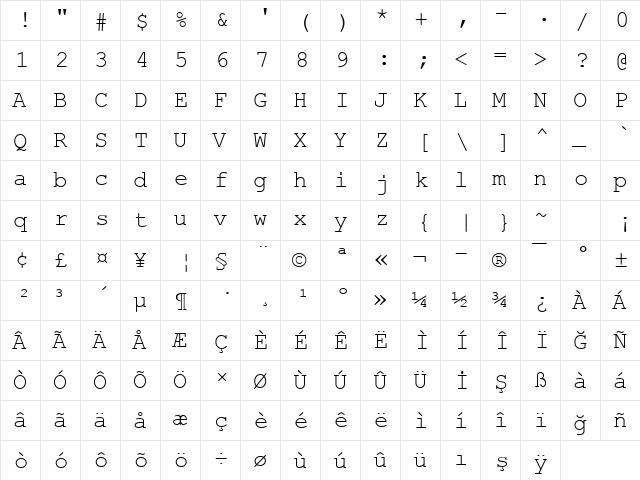
TR Courier New Regular
Design Context for TR Courier New Typeface
TR Courier New brings the precise, column-aligned rhythm of monospaced typography to designs that value technical clarity and systematic order.
A natural fit for code editors, technical documentation, developer-focused branding, and terminal-inspired UI.
Pro Tip: Pair TR Courier New with a proportional sans for UI contexts where code-style labels and regular body copy need to coexist.